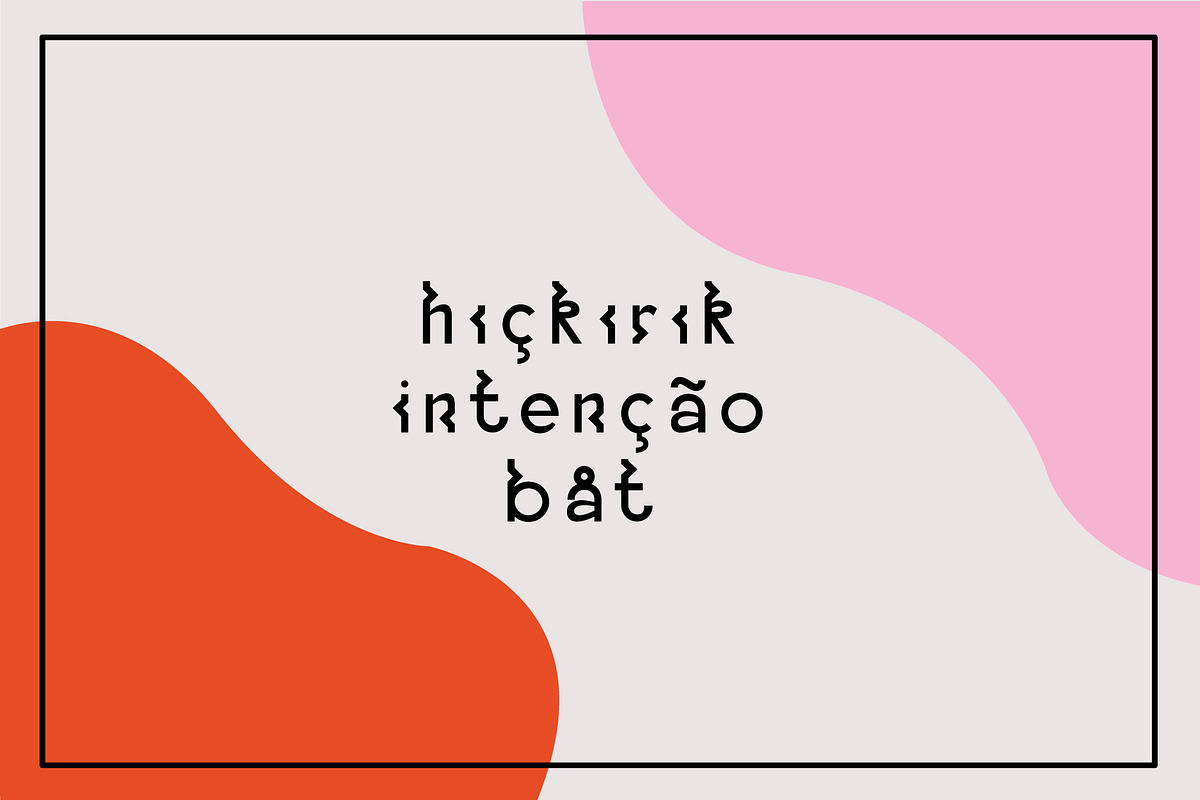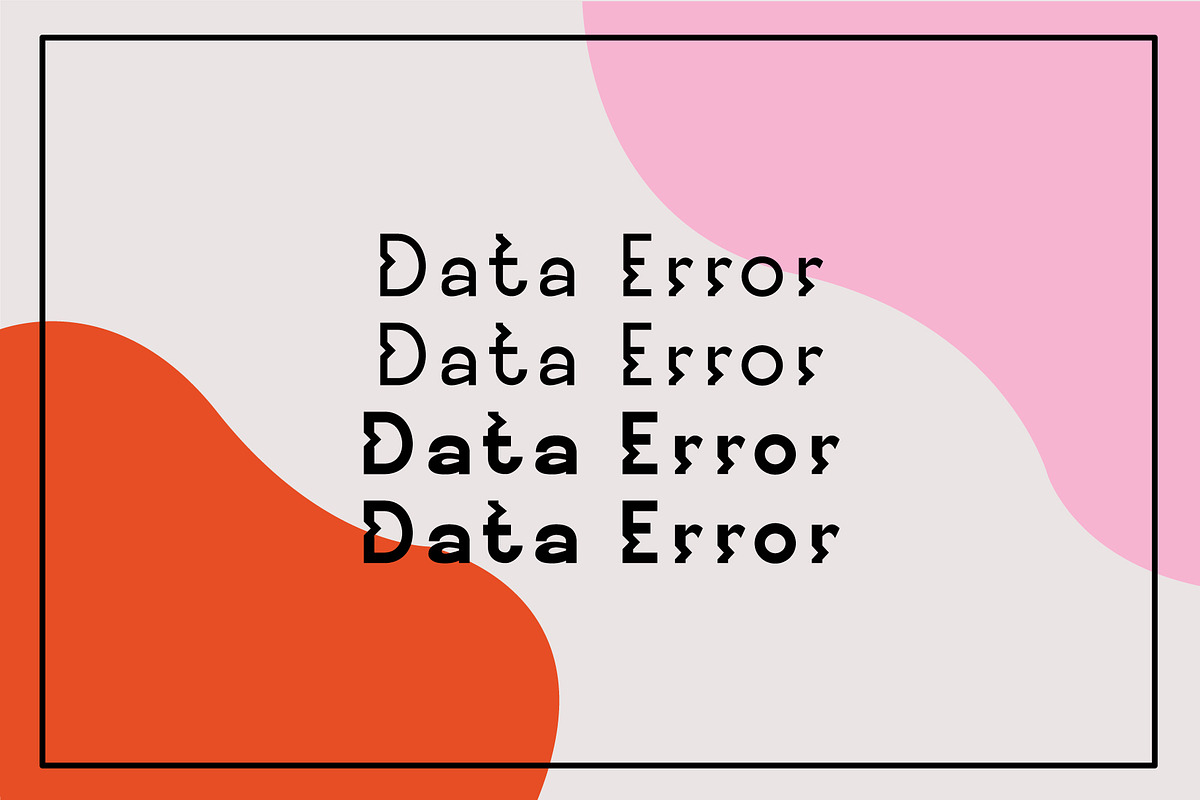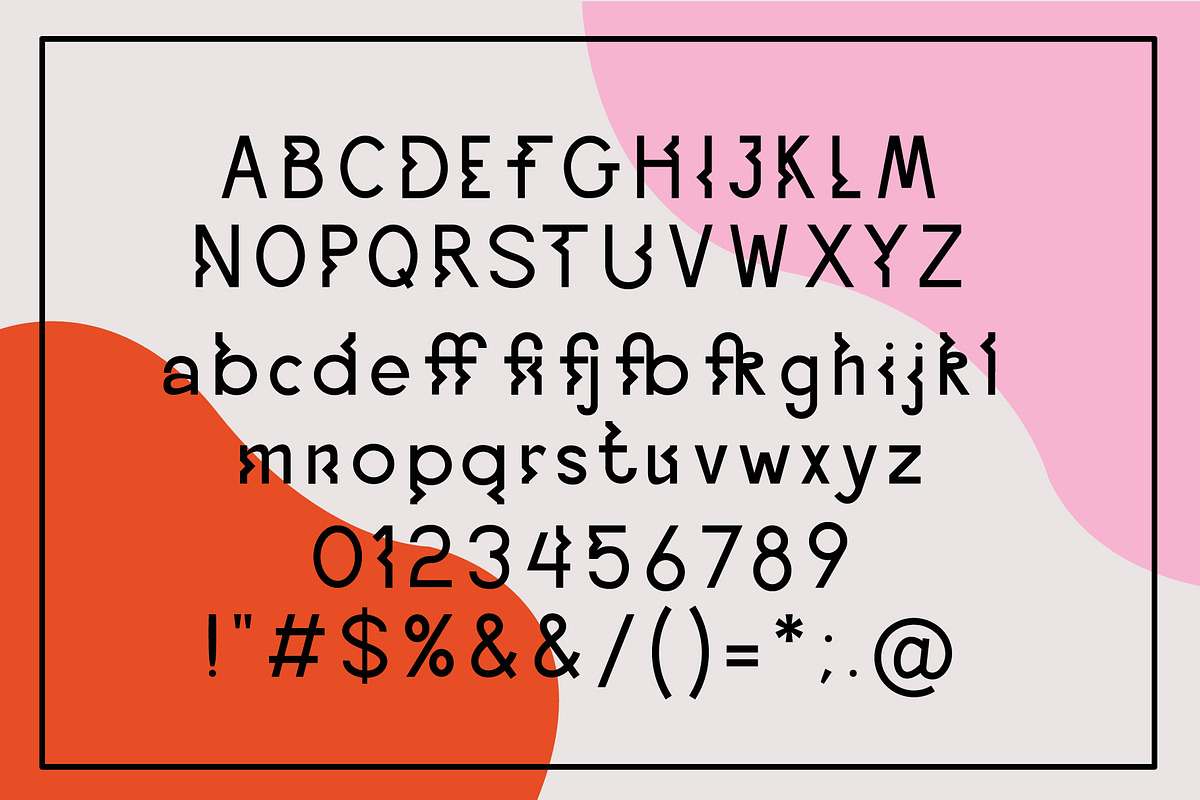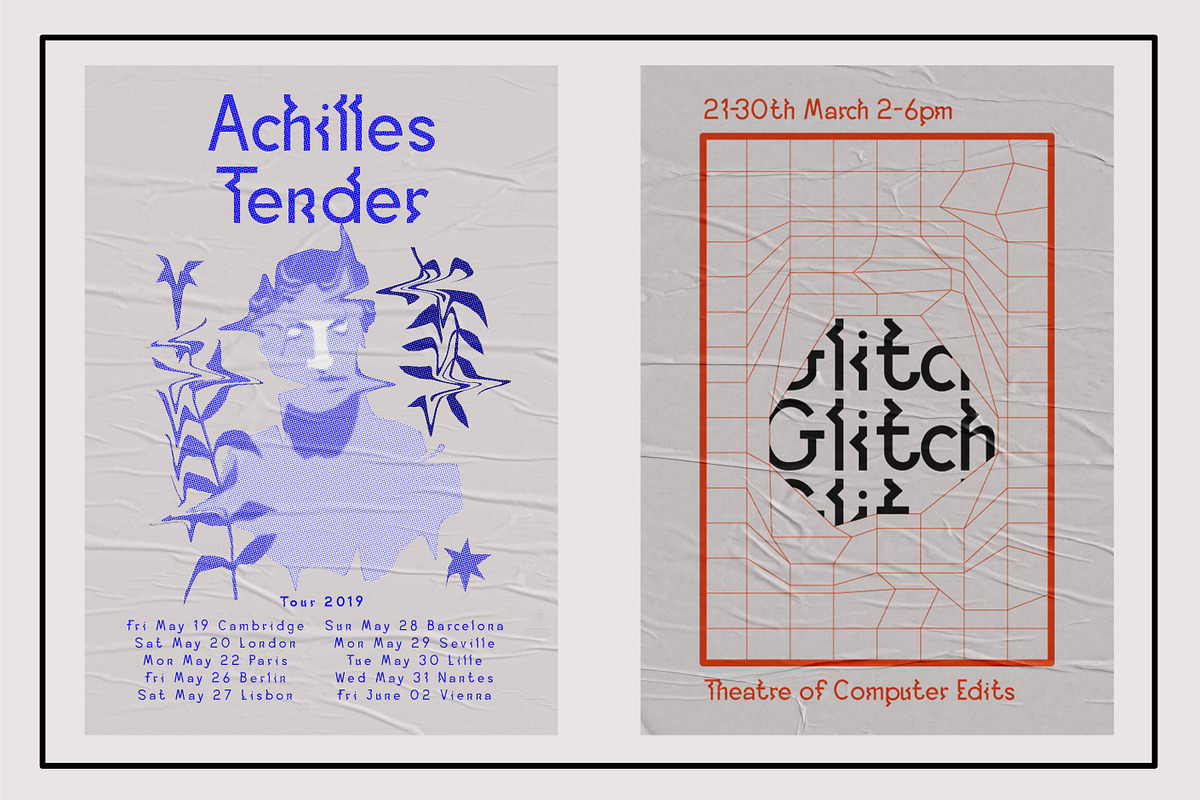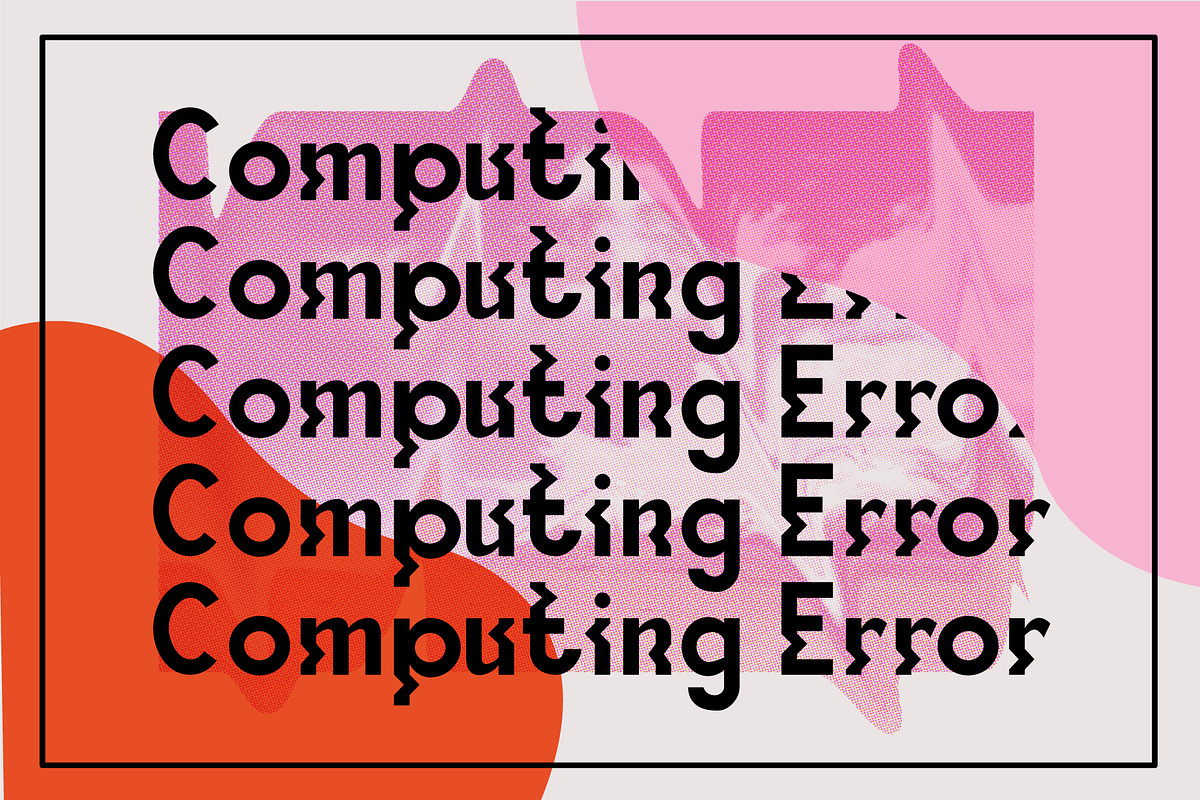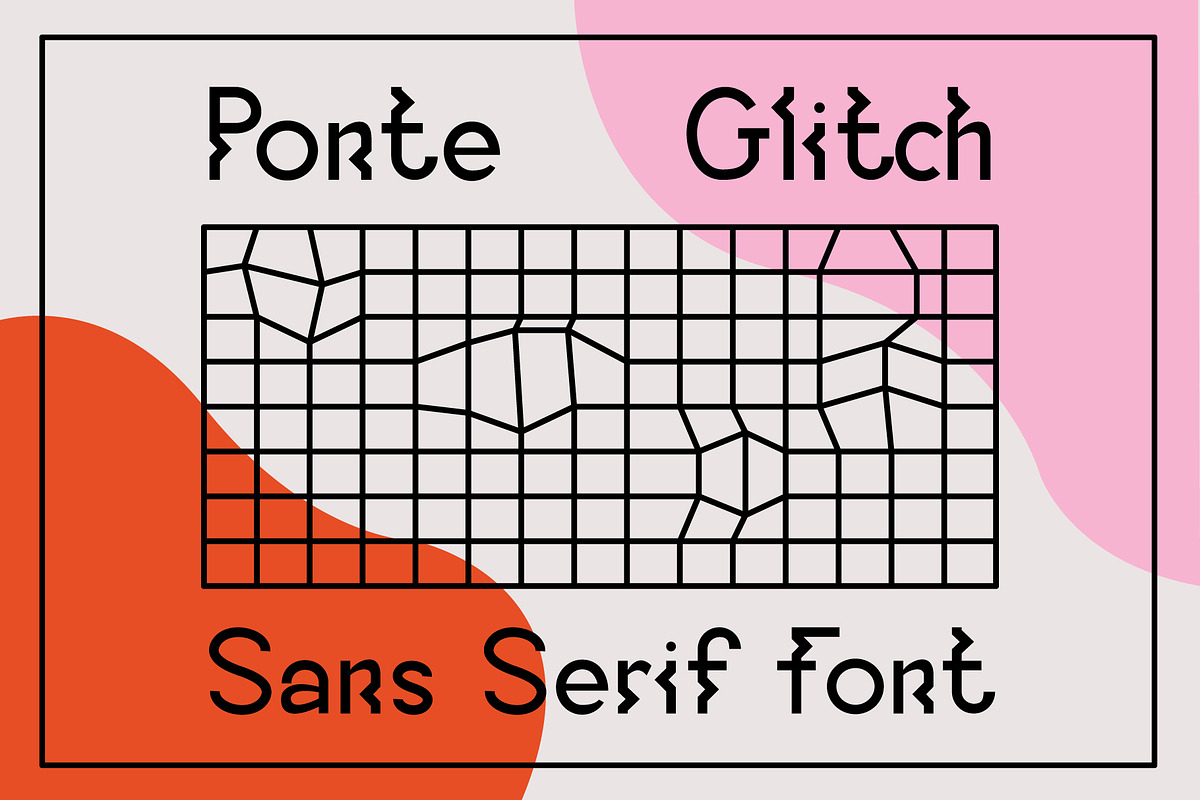
Ponte Glitch Font
A sans serif font with a glitchy effect.
The cousin of ponte font ( ponte glitch font is a more characterful font with publishing design in mind. Whether it-s a concert poster, an audiobook cover or a museum leaflet, ponte glitch hopes to add some cool modernity to your design.
Ponte Glitch Font by Emma Make fits naturally into Branding, posters, packaging, typography.